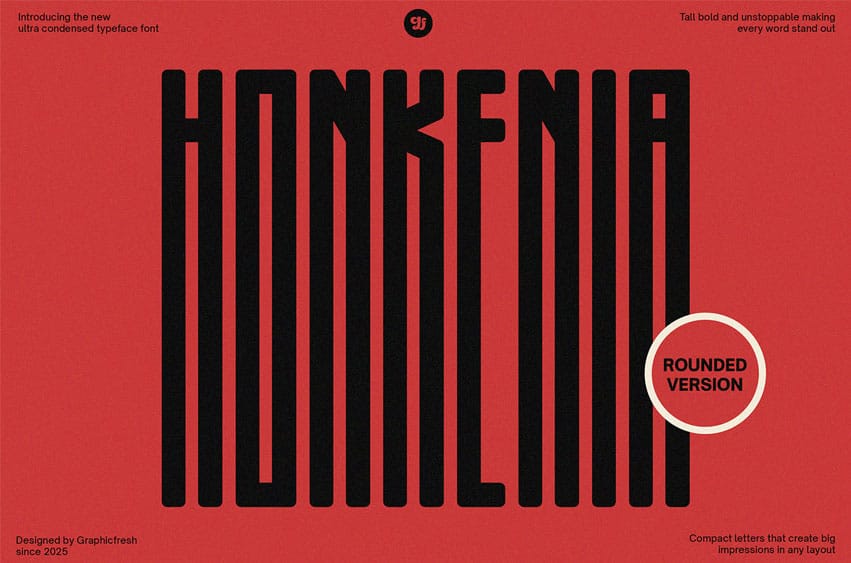
Honkenia Rounded Font is the smoother sibling of our ultra-condensed font family. With its sleek, narrow letterforms and subtly rounded corners, Honkenia Rounded brings a modern yet friendly touch to your typography. It’s designed for creatives who seek a balance between bold impact and soft elegance.
Perfect for branding, editorial layouts, minimalist packaging, and stylish digital content, this font delivers clarity with personality. Its ultra-condensed proportions allow you to save space without compromising visual presence, while the rounded details add warmth and approachability.
From luxury branding to playful social media graphics, Honkenia Rounded adapts beautifully to a variety of design needs—bringing a refined yet human feel to any project.